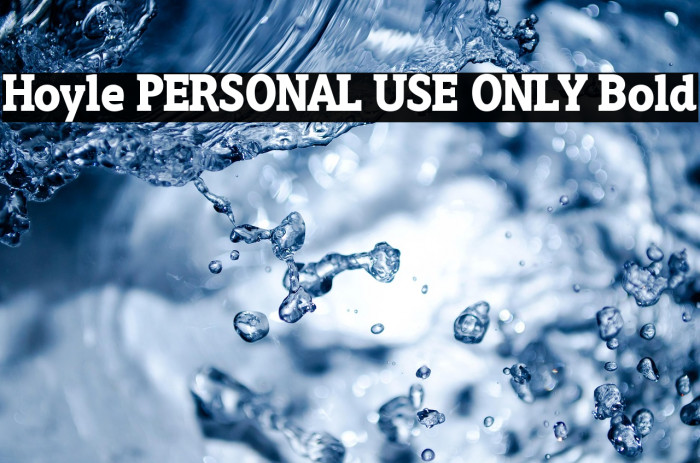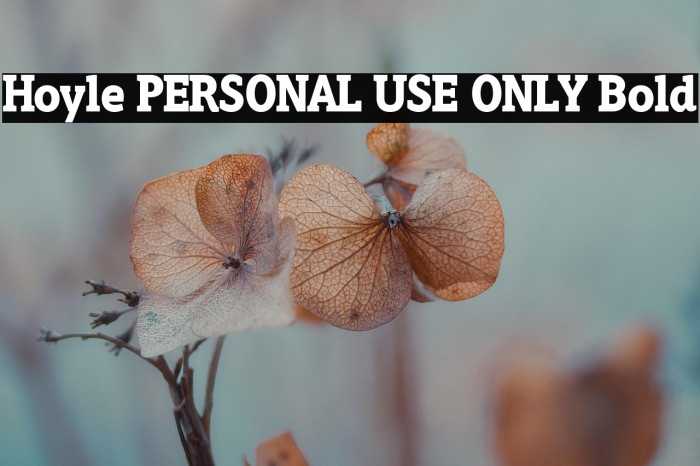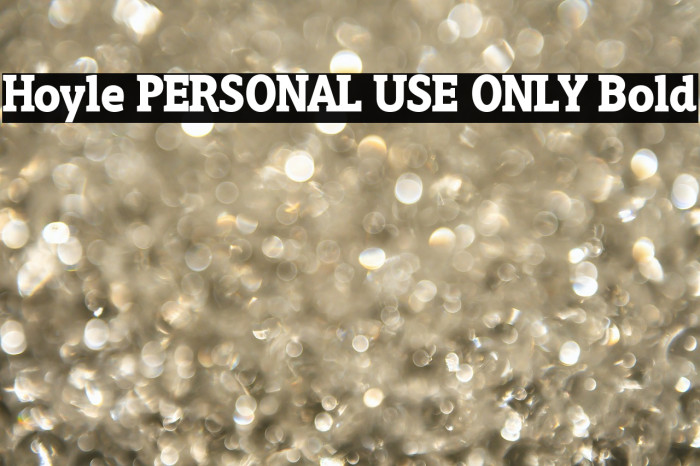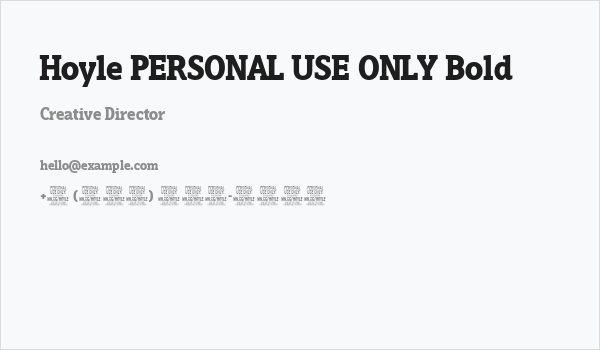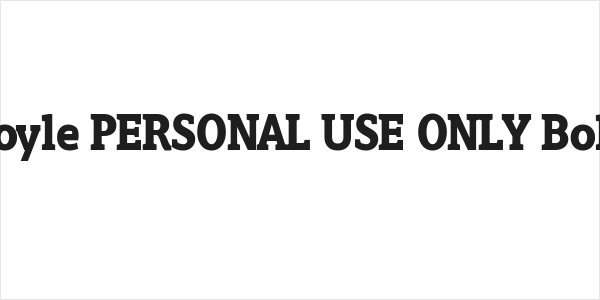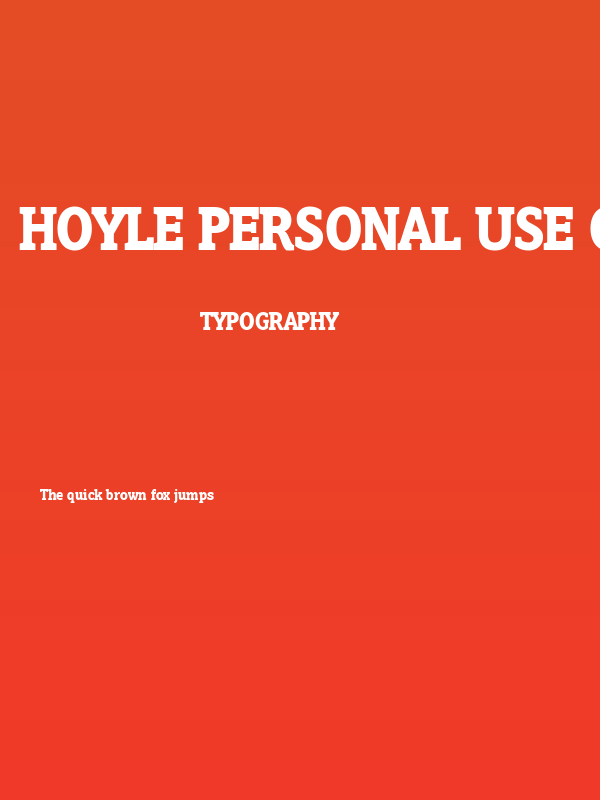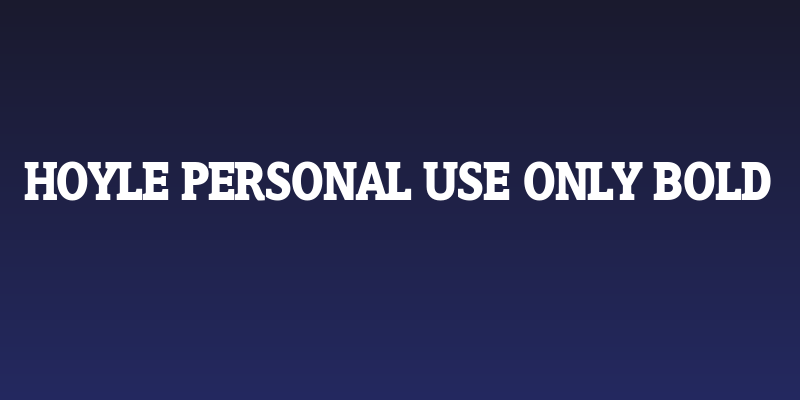
Hoyle PERSONAL USE ONLY Bold Font
Hoyle PERSONAL USE ONLY Bold Description
This bold typeface features strong, thick strokes with a robust and commanding presence. The uppercase letters are solid and impactful, making them ideal for attention-grabbing headlines. The lowercase letters maintain a consistent weight, ensuring readability while retaining the bold style. The numerals and special characters are designed to match the overall boldness, providing a cohesive look across all text elements. The font's design is straightforward yet powerful, with a slight vintage touch that adds character without compromising clarity.